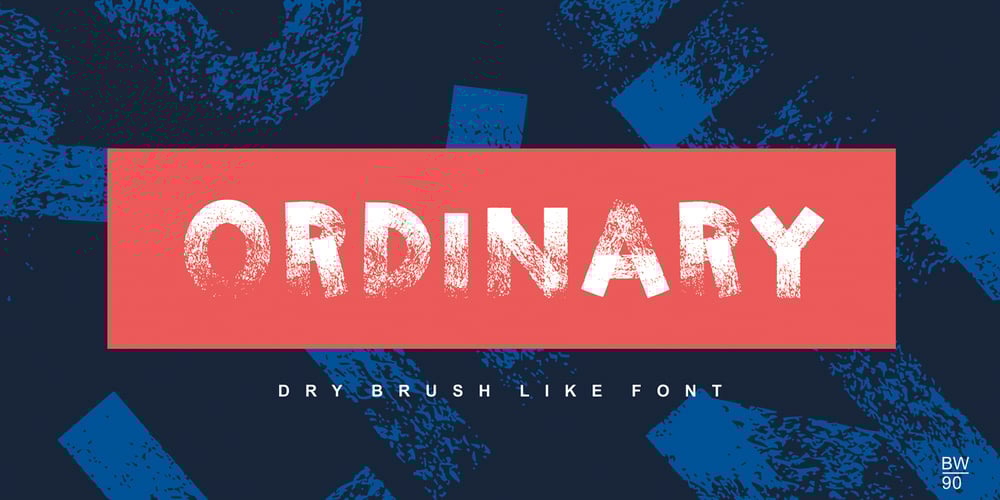
Dry Brush Blocks
Dry Brush Blocks font
Dry Brush Blocks Font Family was designed by Radovan Cernak and published by BW90. Dry Brush Blocks contains 1 styles and family package options. It was supposed to be brush-like, but it looks more like sponge. Have fun using it!